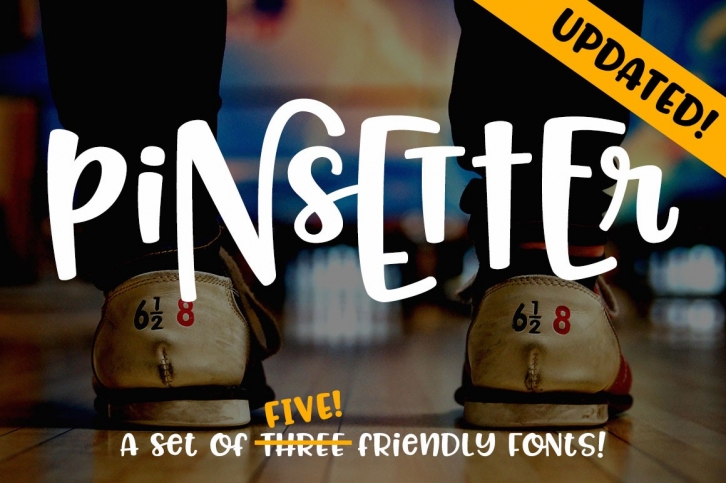
Pinsetter is a gorgeous font that was realeased on December 7, 2016. The font can be used in many style contexts and design environments. Perfect for invitations, magazines, websites, logos, and more! It was designed by Missy Meyer Fonts and the file size is 5.31 MB. Thanks for checking out this font!